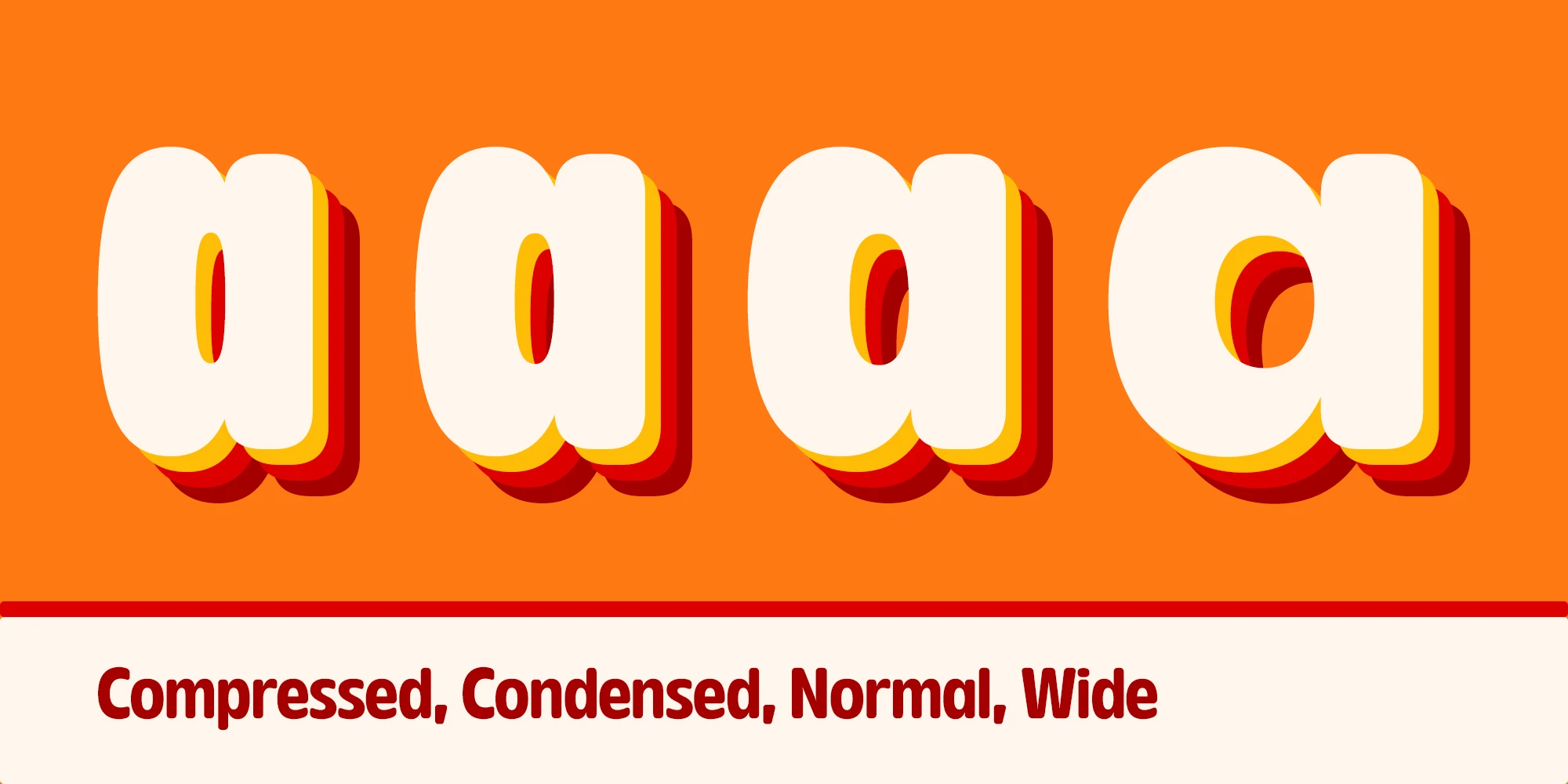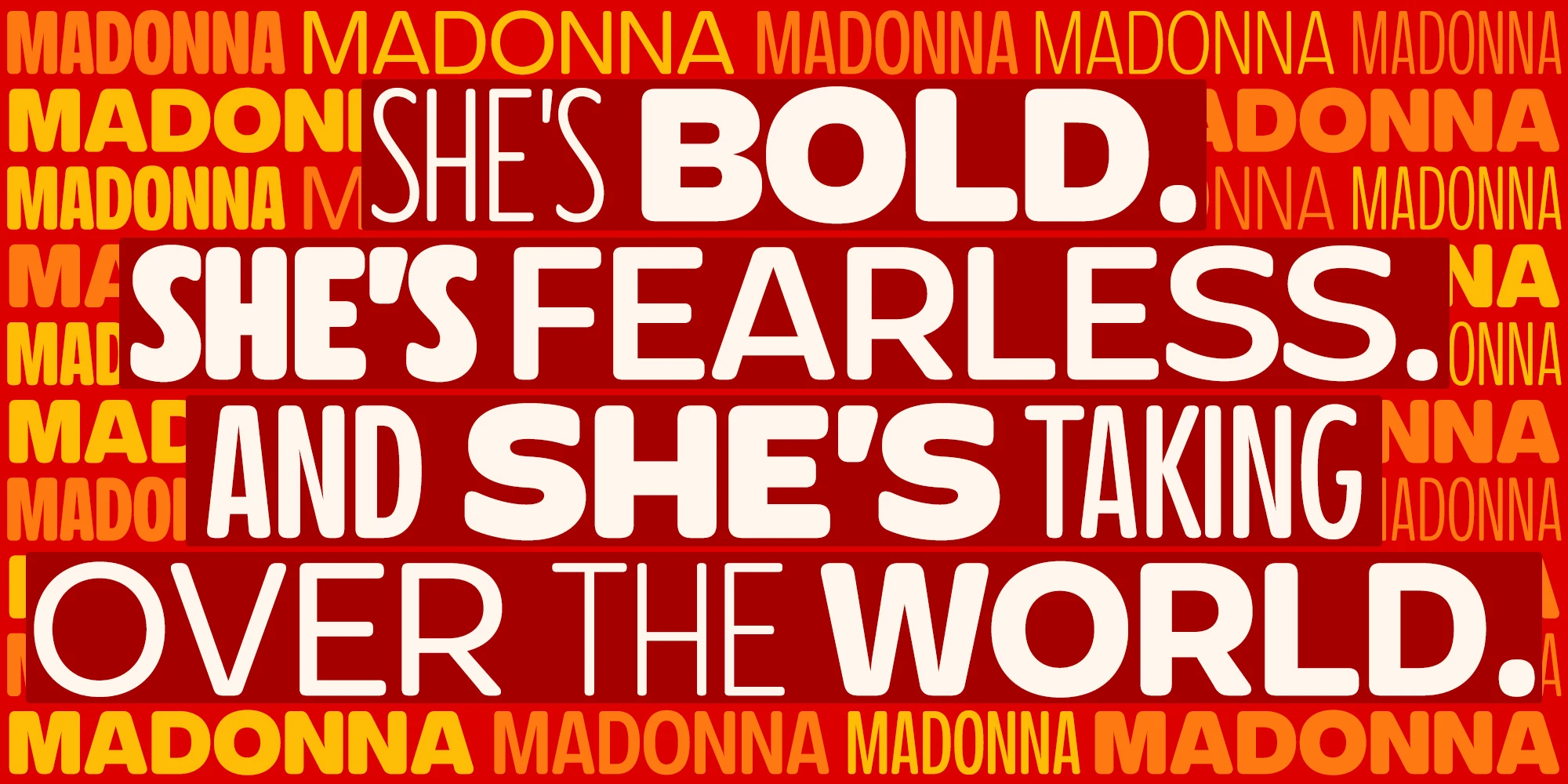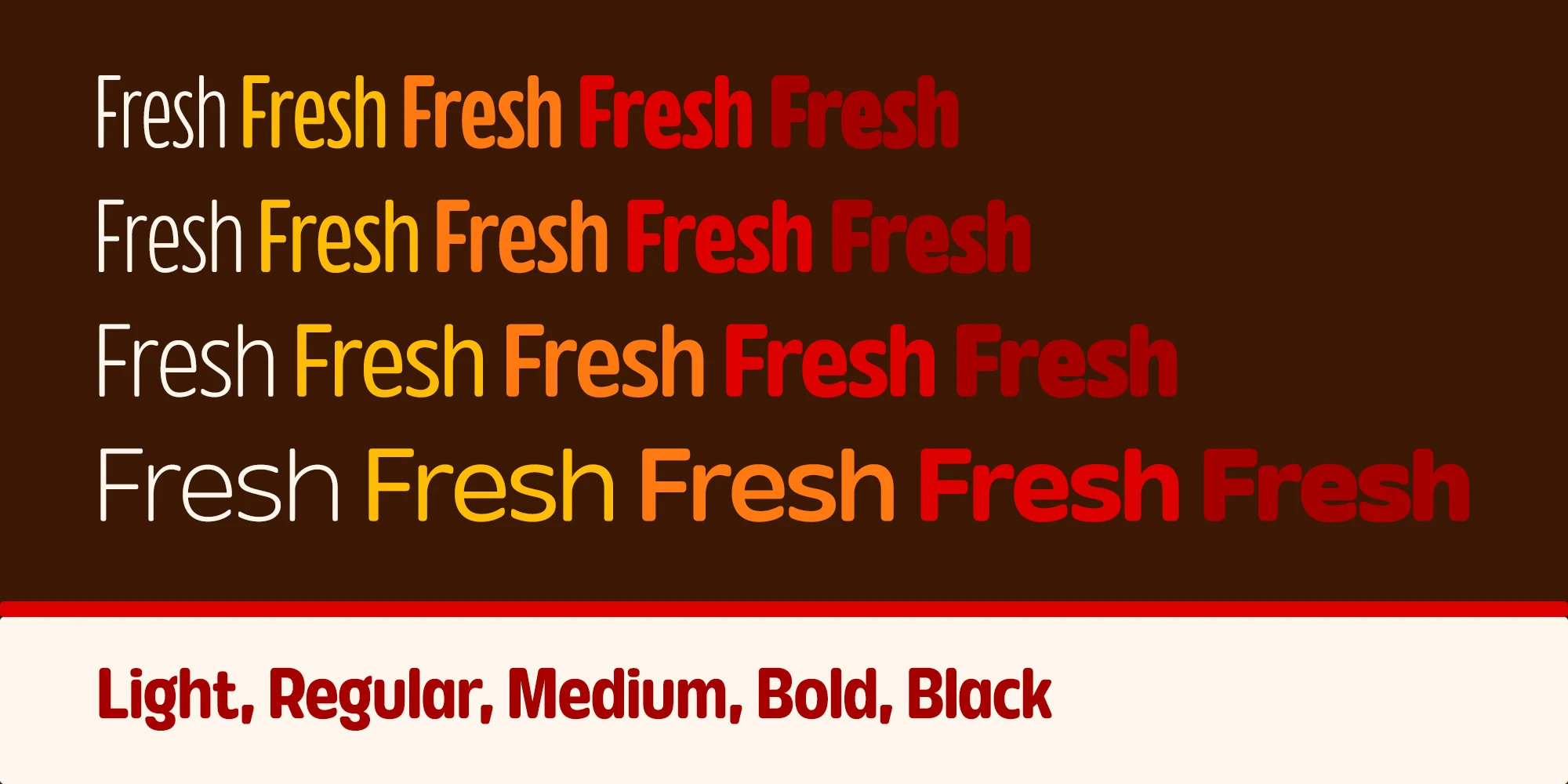
Glorium Grotesque Font Family
Glorium Grotesque is a friendly sans serif balancing character and utility. With a structure softened by rounded curves and opened with a generous x-height, it gives a modern, confident tone. Whether you’re building a youthful brand, crafting standout packaging, designing a series of books, or shaping bold editorial layouts. Built for work and play, Glorium Grotesque brings versatility and clarity with personality. Available in 4 widths, 5 weights, and as a variable font.
• Fractions
• Ordinal Numerals
• Proportional Numerals
• Stylistic Alternates
• Subscript
• Superscript
• Tabular Numerals